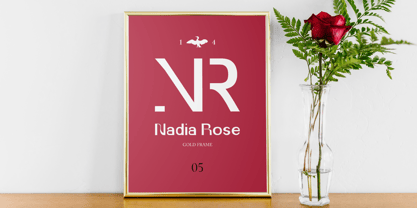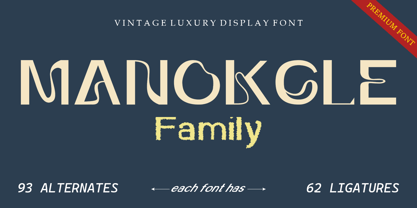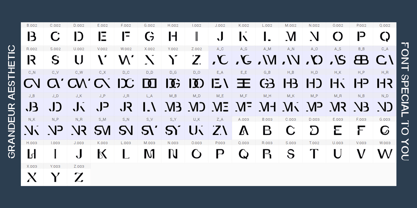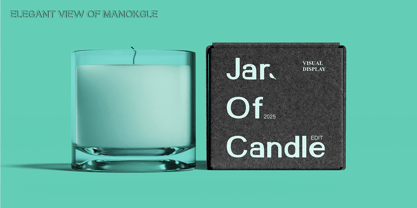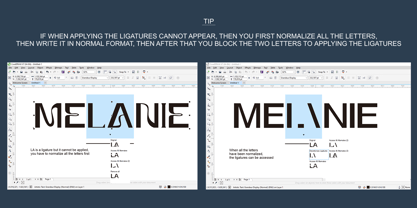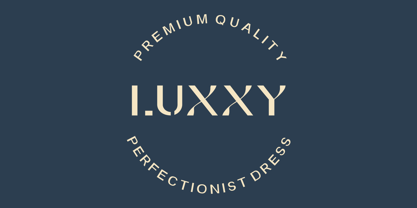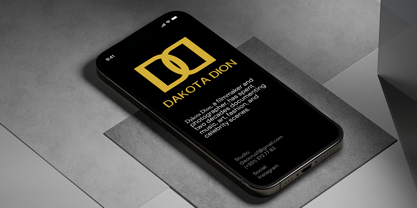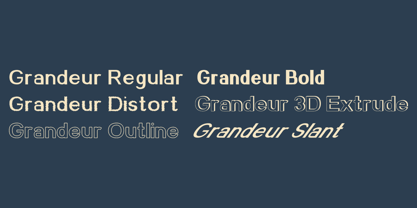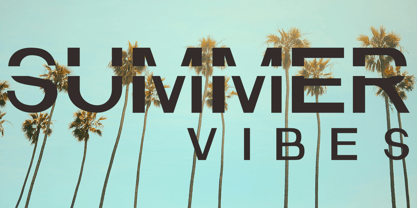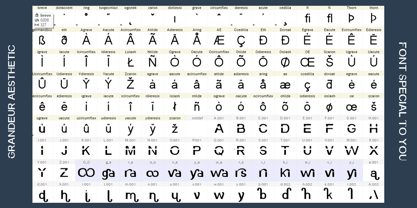
Manokgle
by Zaki Creative
The Manokgle Font Family was designed by Teuku Muhammad Zaki and published by Zaki Creative. Manokgle contains 6 styles and family package options.
Manokgle Family is a premium vintage luxury display font perfect for both modern and classic design projects. Featuring six versatile styles including 3D Extrude, Bold, Distort, Outline, Regular, and Slant, this font provides maximum flexibility for any creative need. Ideal for branding, logos, packaging, posters, and editorial design. Each font includes 93 alternates and 62 ligatures, giving designers the ability to craft truly unique and expressive work. Make a bold impression with the luxurious and elegant style of the Manokgle Family.